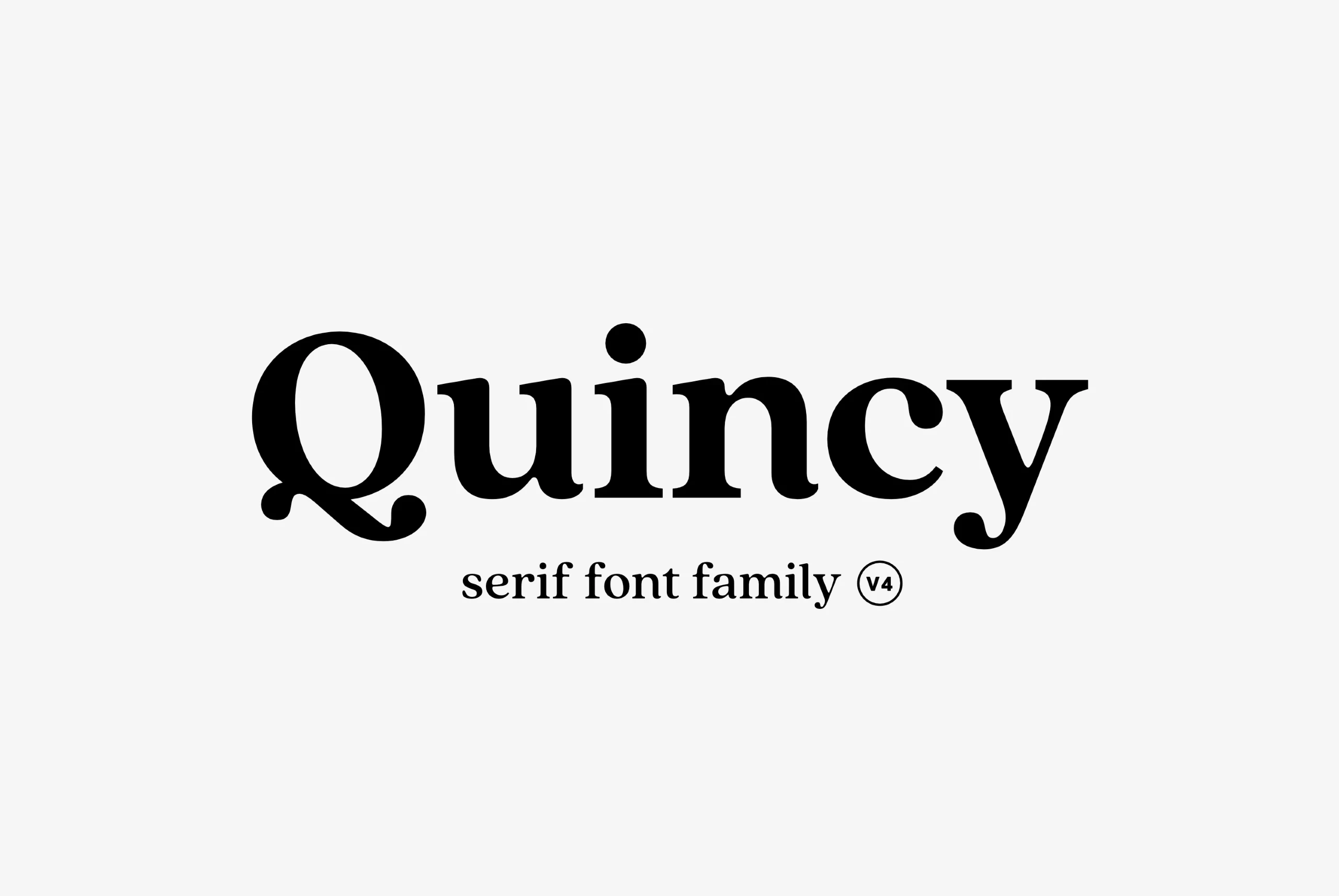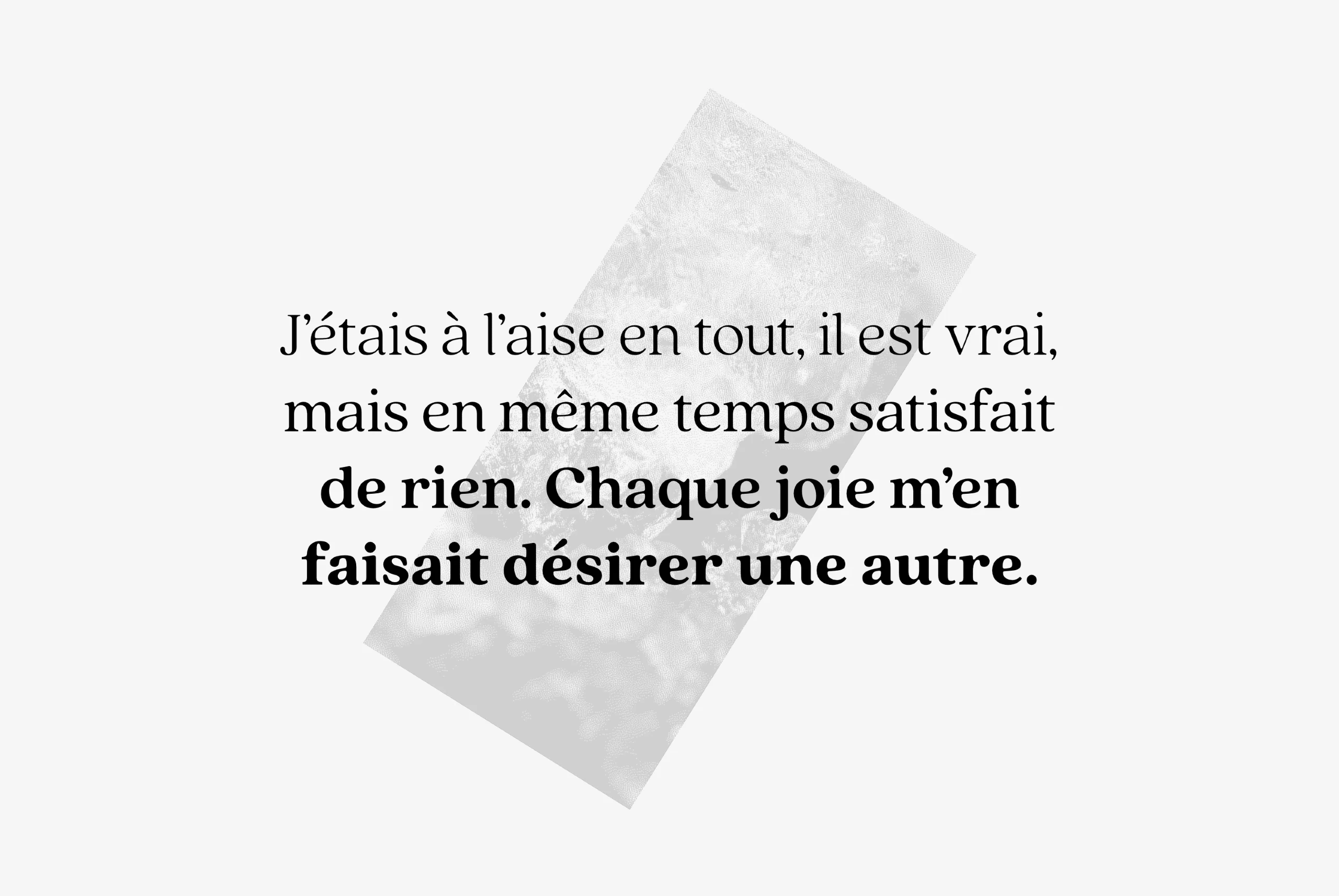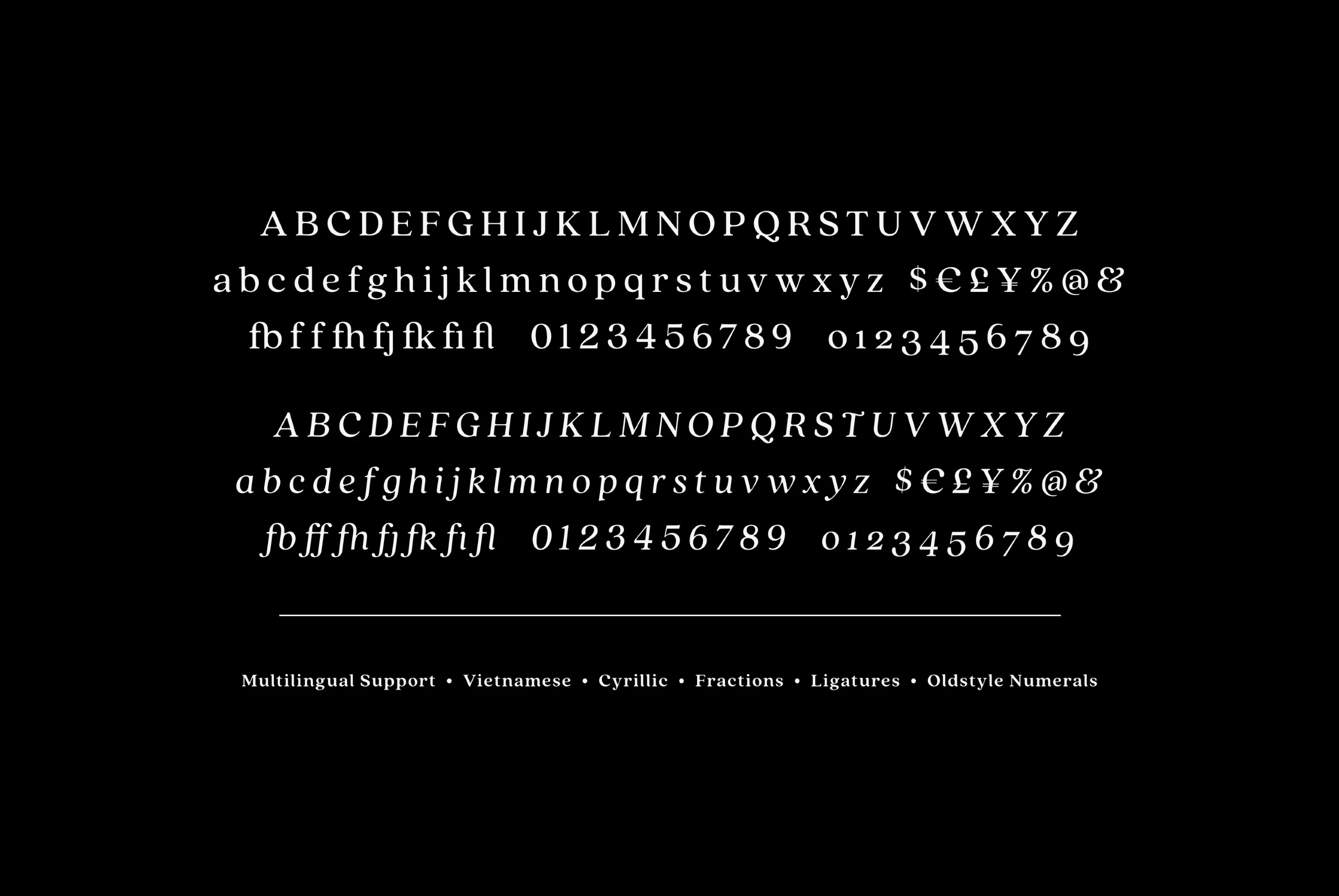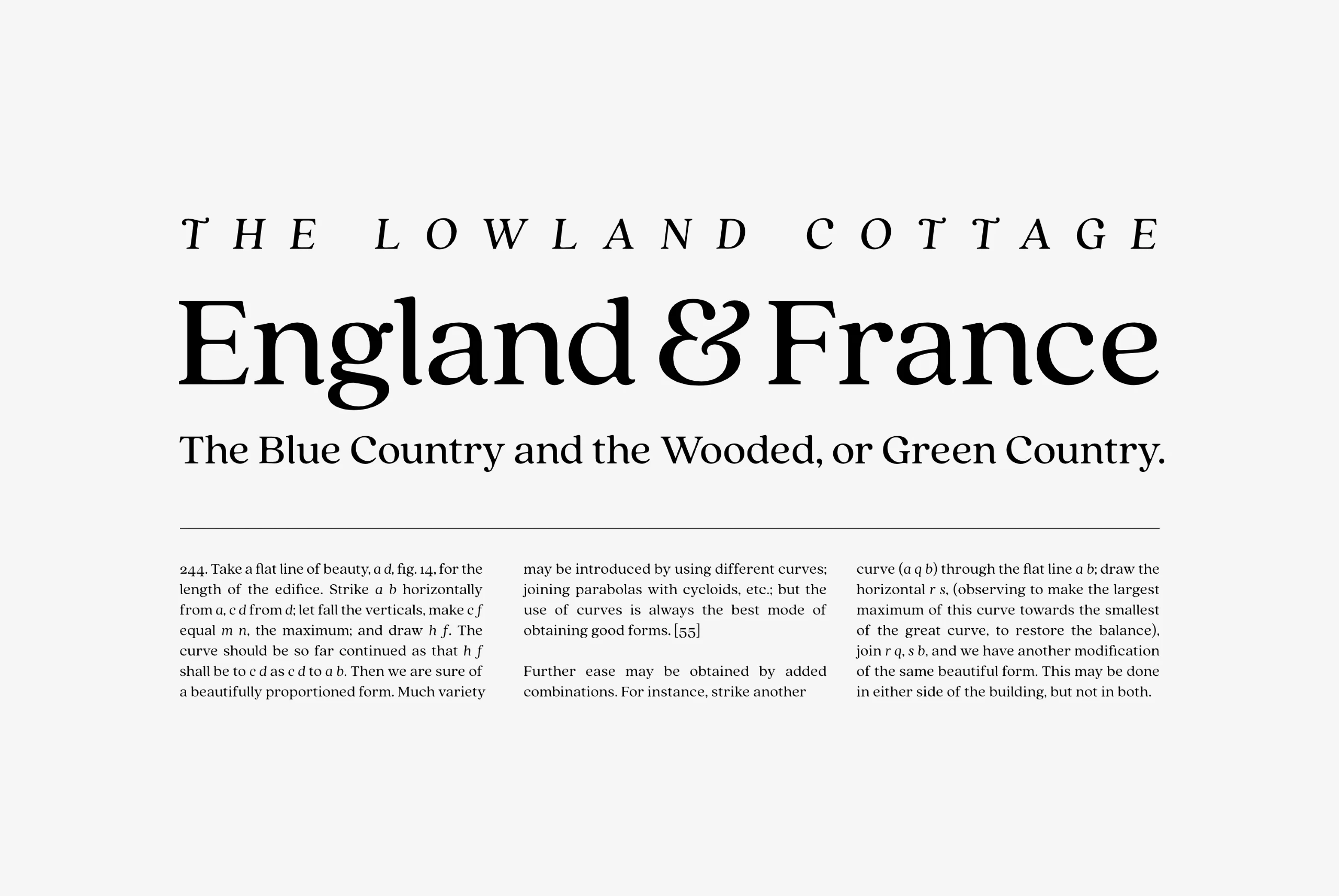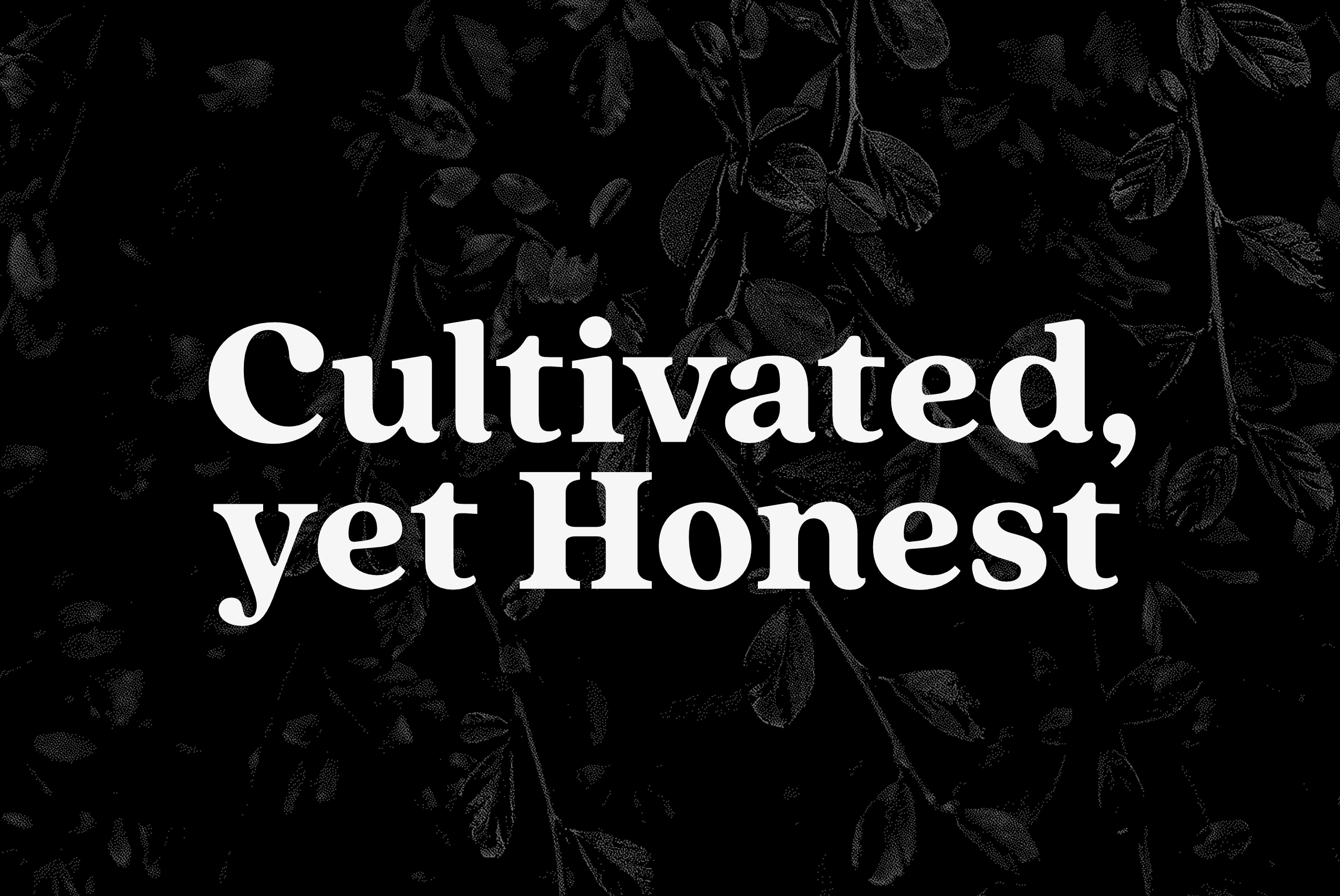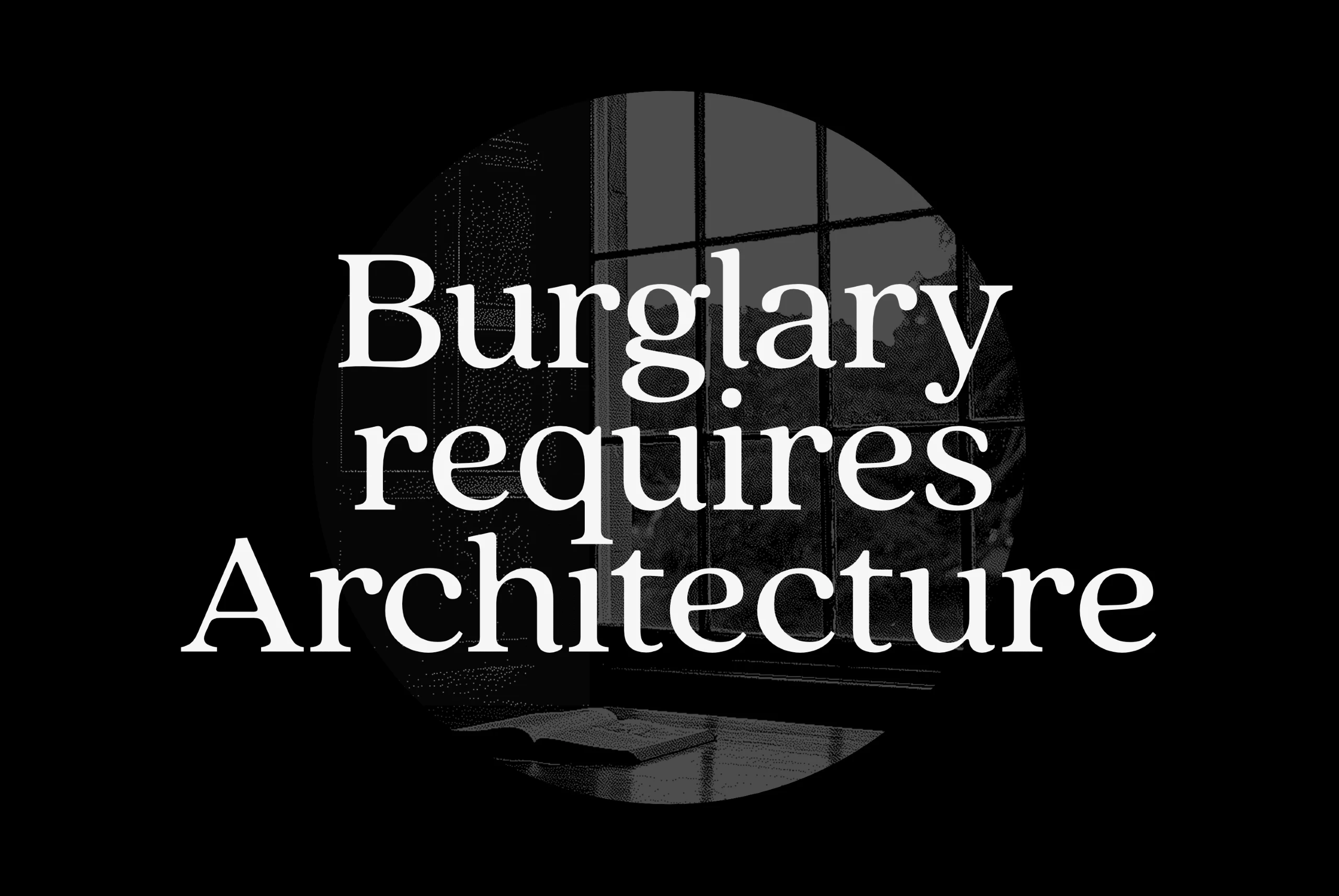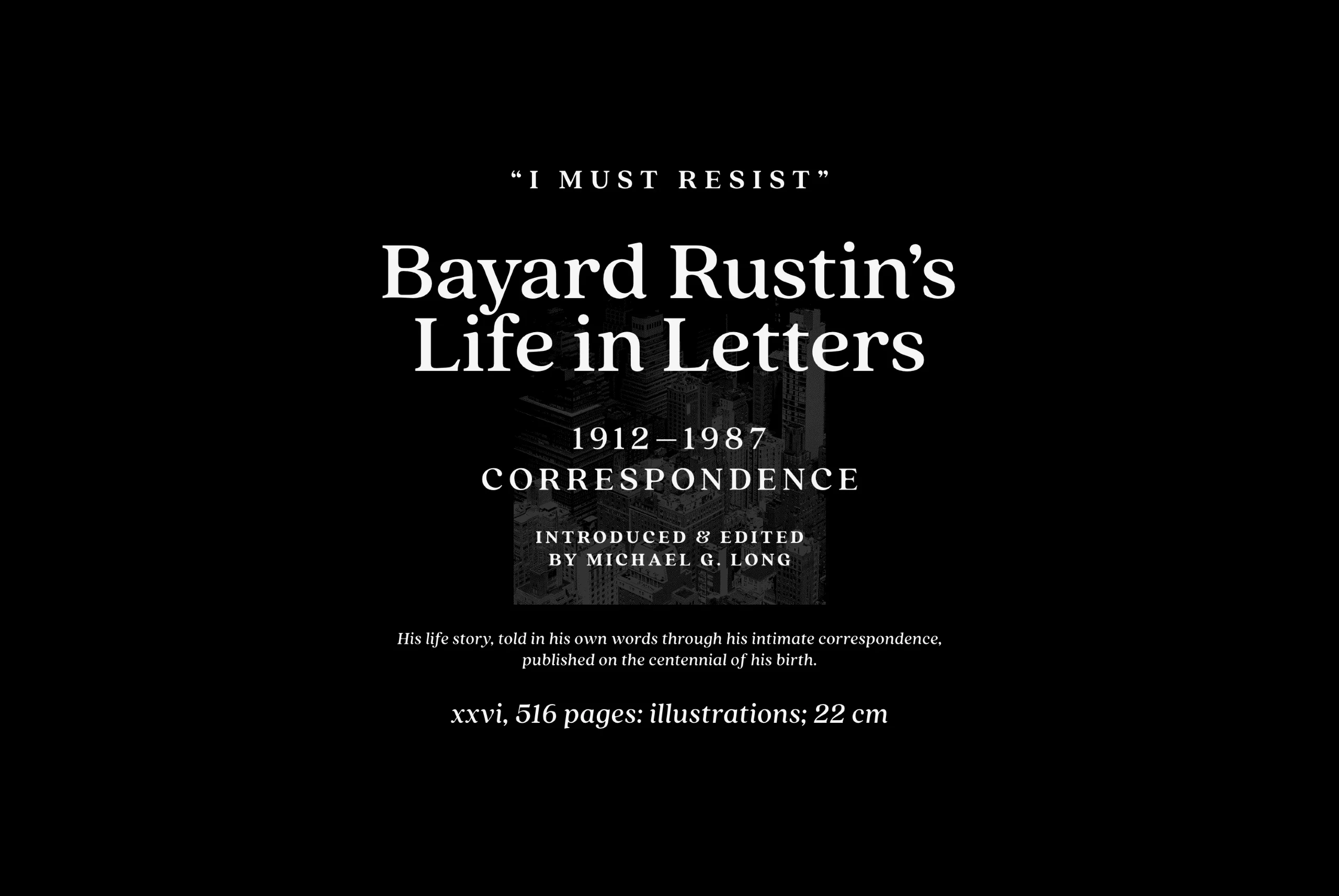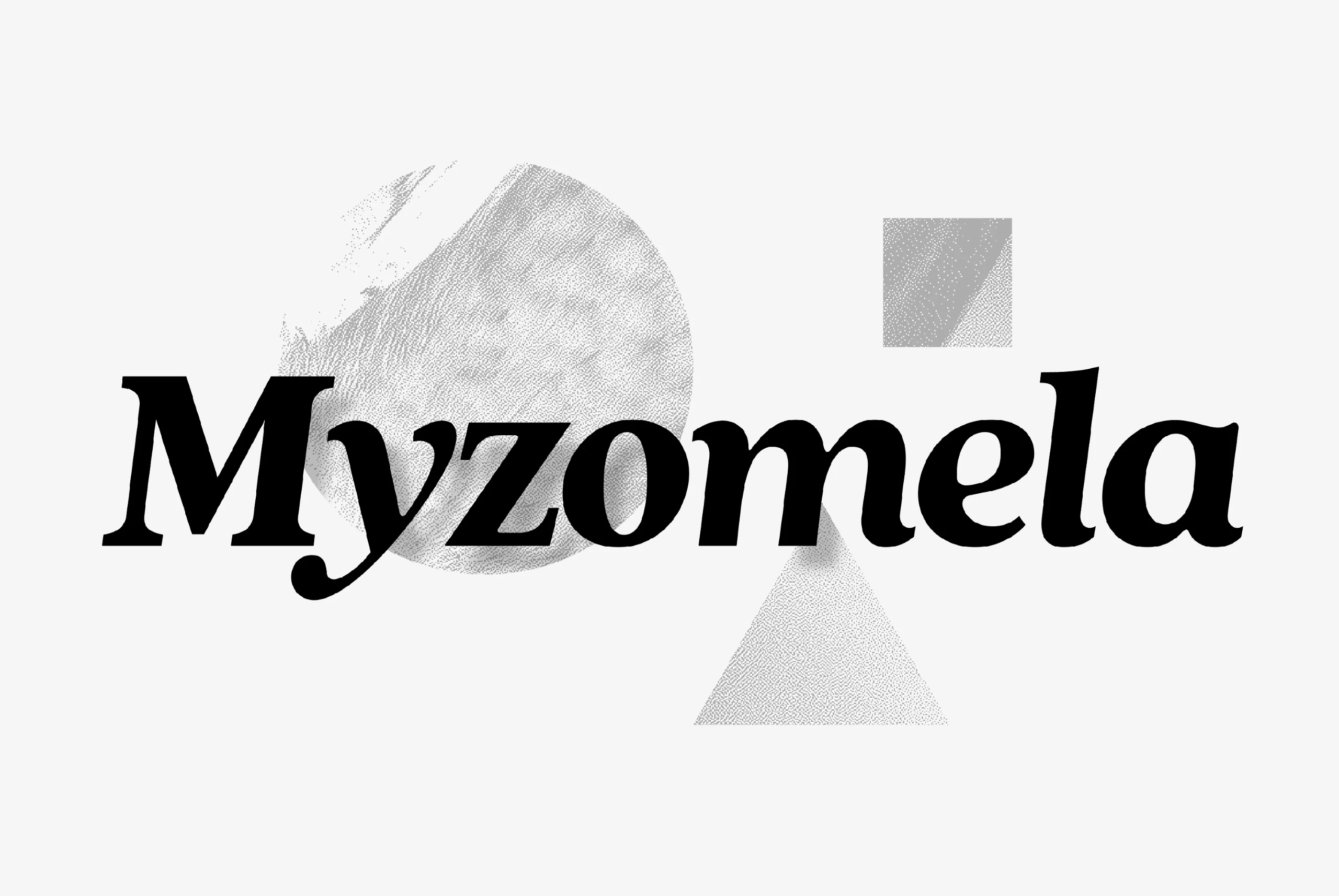
Quincy
The warm letterforms and medium contrast of Quincy CF give any text a smooth, flowing motion. Small variations and human touches add charm, with Quincy’s boldest weights especially strong as large and medium display type.
Quincy font by Connary Fagen Fonts — the word “Quincy” in large, upright serif letters above the words “serif font family” and a circled “V4” in smaller, upright serif lettersQuincy font by Connary Fagen Fonts — a French quote in upright serif letters, partially obscured by a diagonal textured gray rectangleQuincy font by Connary Fagen Fonts — two sets of serif alphabet characters, numerals, and symbols, one upright and one italic, with a list of features below.Quincy font by Connary Fagen Fonts — the words “THE LOWLAND COTTAGE” in upright serif capitals, “England & France” in large upright serif letters, and “The Blue Country and the Wooded, or Green Country.” in smaller upright serif letters, with three columns of serif body text below a horizontal lineQuincy font by Connary Fagen Fonts — the words “Cultivated, yet Honest” in a high-contrast serif font, over a dark background with faint botanical illustrationsQuincy font by Connary Fagen Fonts — the words “Burglary requires Architecture” in white serif letters, over a dark, grainy image of a window and a book on a sill, all within a white circleQuincy font by Connary Fagen Fonts — the serif words “Bayard Rustin’s Life in Letters” over a faint image of city buildings, with smaller upright and italic text above and belowQuincy font by Connary Fagen Fonts — the word “Myzomela” in a high-contrast serif italic, with a stippled circle, square, and triangle in the background